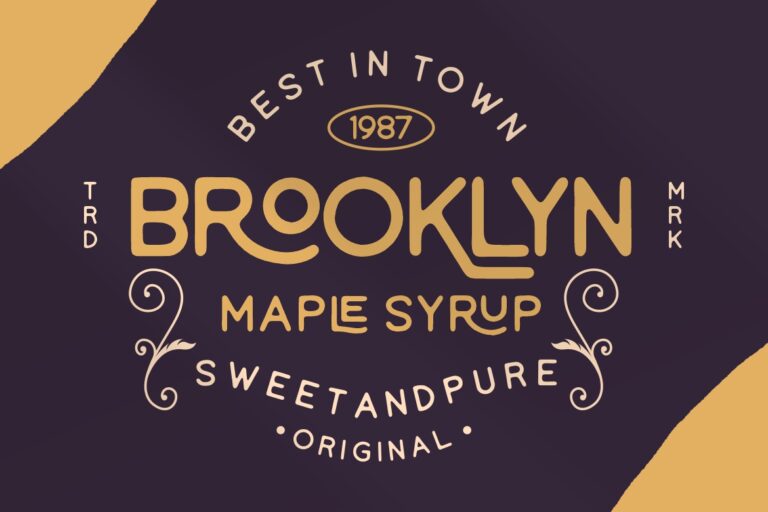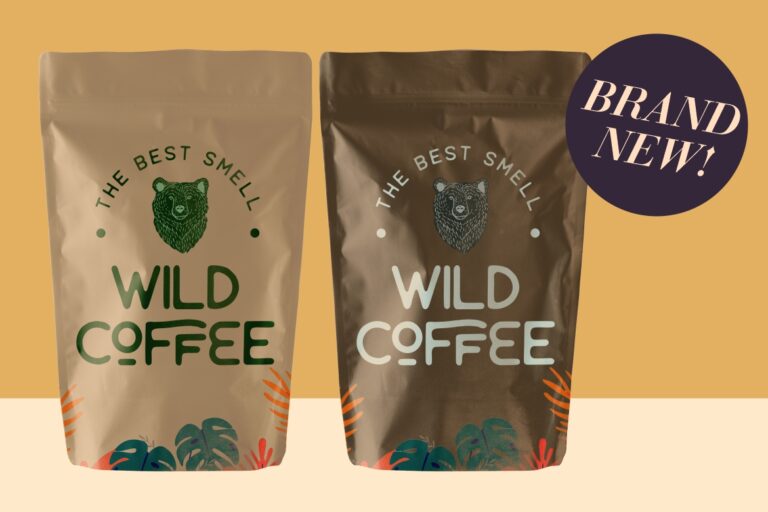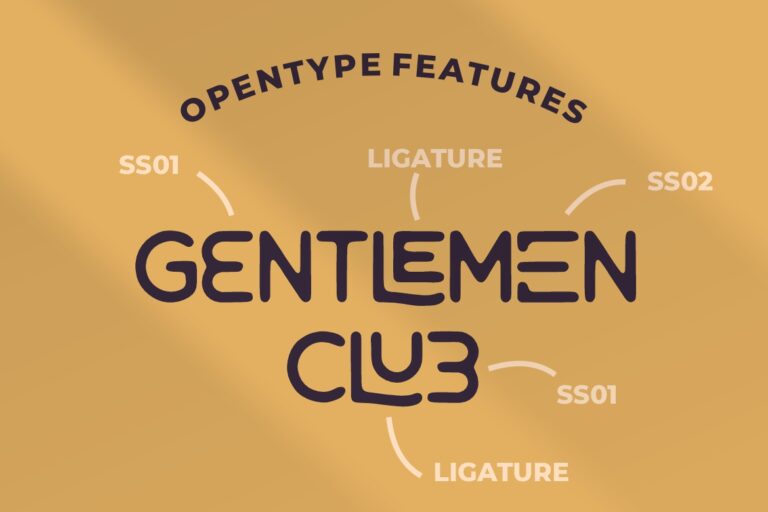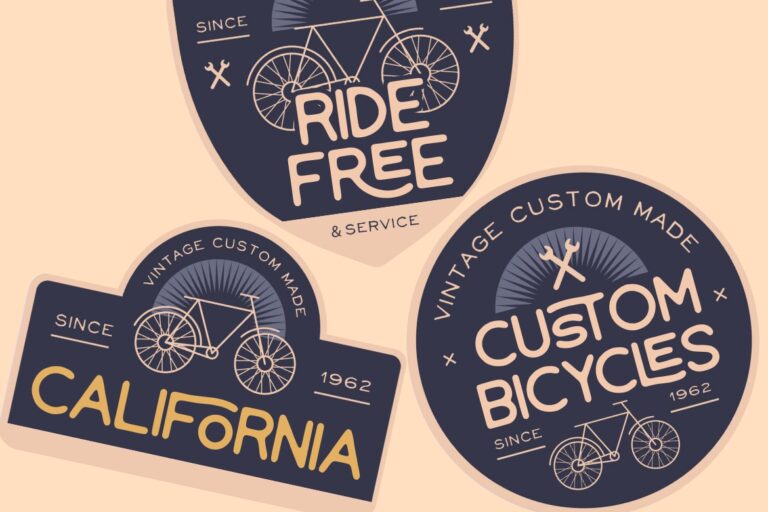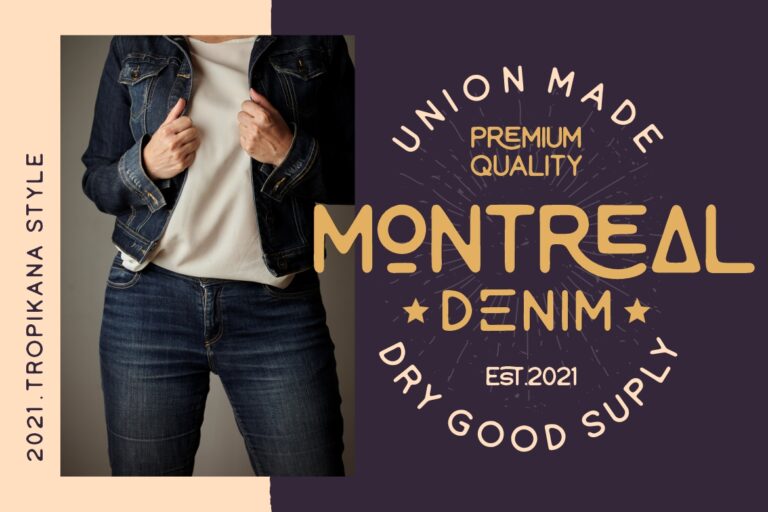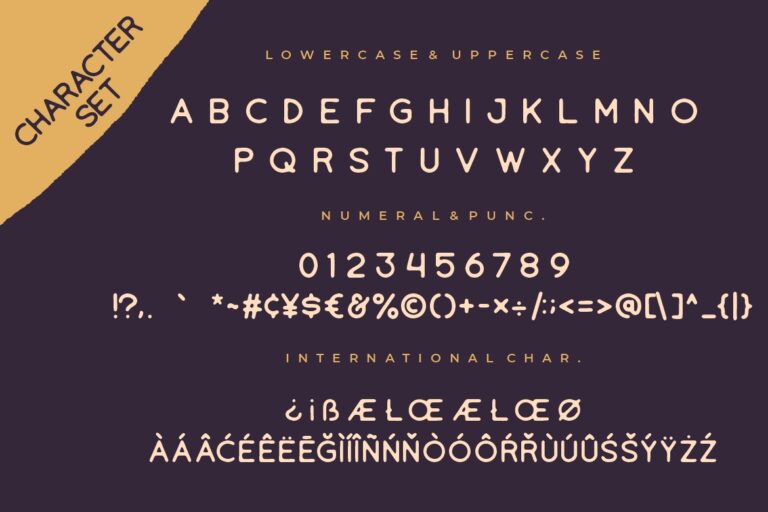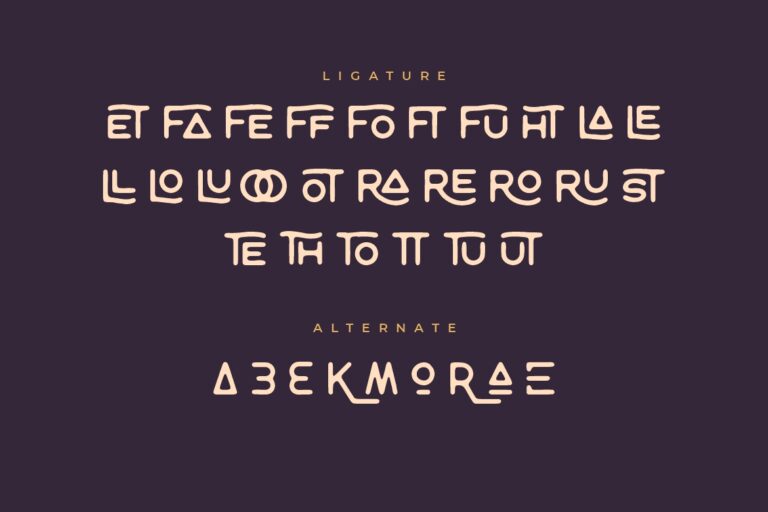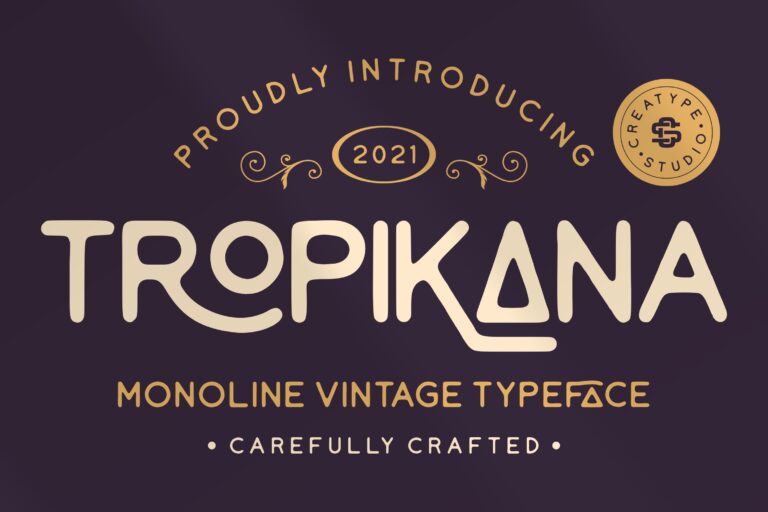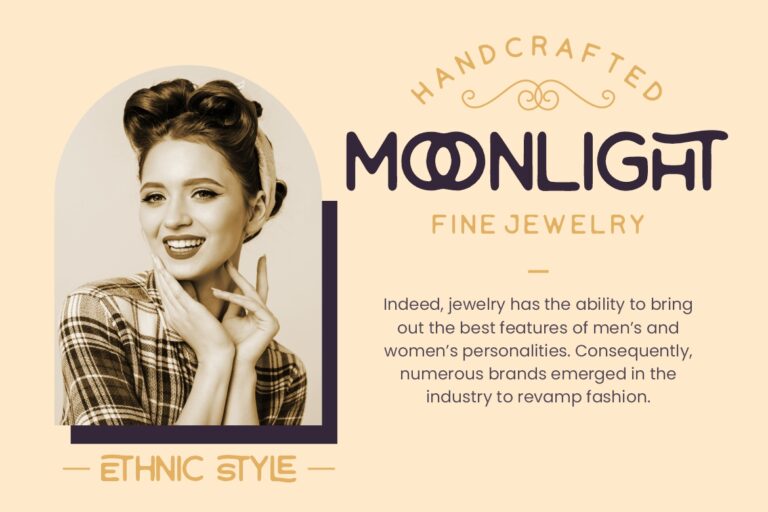
Tropikana is vintage monoline font with various alternate and ligature which perfect for your retro project.
Tropikana is perfect for branding projects, logo, wedding designs, social media posts, advertisements, product packaging, product designs, label, photography, watermark, invitation, stationery and any projects that need handwriting taste.
Tropikana Monoline Vintage Typeface